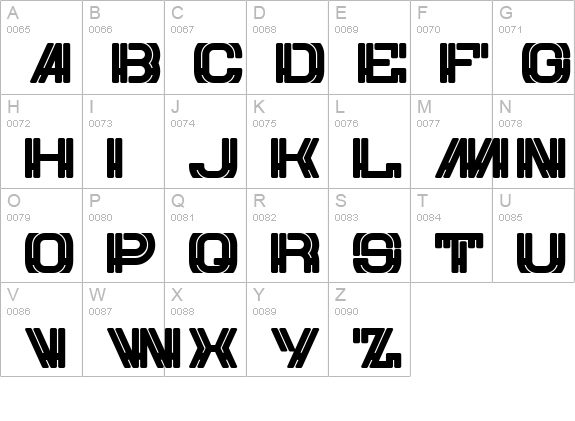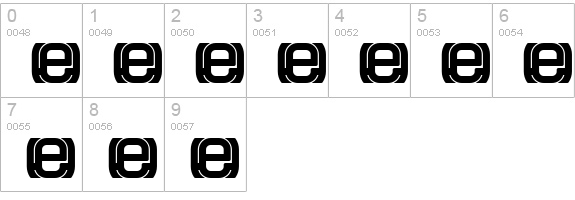
EUROW Font Details
EUROW font is a stunning and versatile typeface that combines traditional elegance with a modern twist. Its sleek lines and timeless appeal make it perfect for a wide range of design projects, from branding to editorial layouts. With its clean, sophisticated look, EUROW font exudes professionalism and creativity, making it a must-have for any designer's toolkit. The best part? EUROW font is completely free to download at FontsMarket.com. This means that you can easily access this high-quality font without any cost, allowing you to elevate your designs without breaking the bank. Whether you're working on a personal project or a client's brief, EUROW font offers the perfect balance of style and functionality. Download it today and take your design work to the next level with this exceptional typeface.